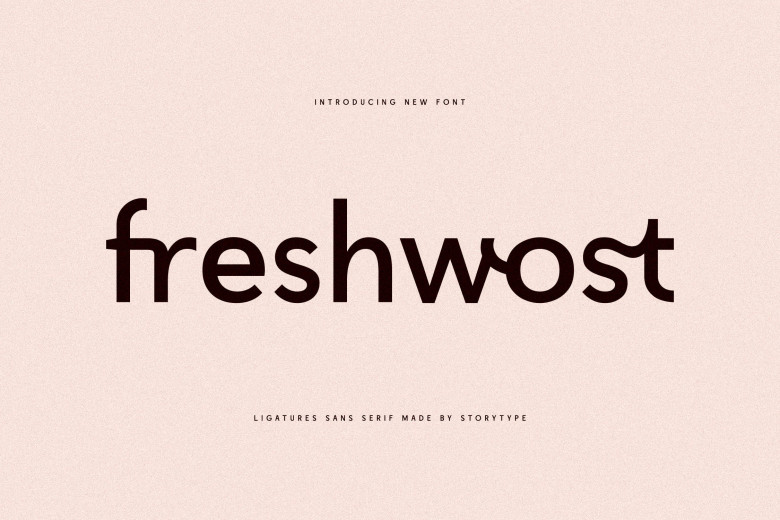
Freshwost Font
Freshwost is a current and timeless sans serif font with one exclusive style & modern look. This beautiful typeface is ideal for an elegant & luxurious logo, book or movie title design, fashion brand, magazine, clothes, lettering, quotations, and many more.
Freshwost Sans Serif Font